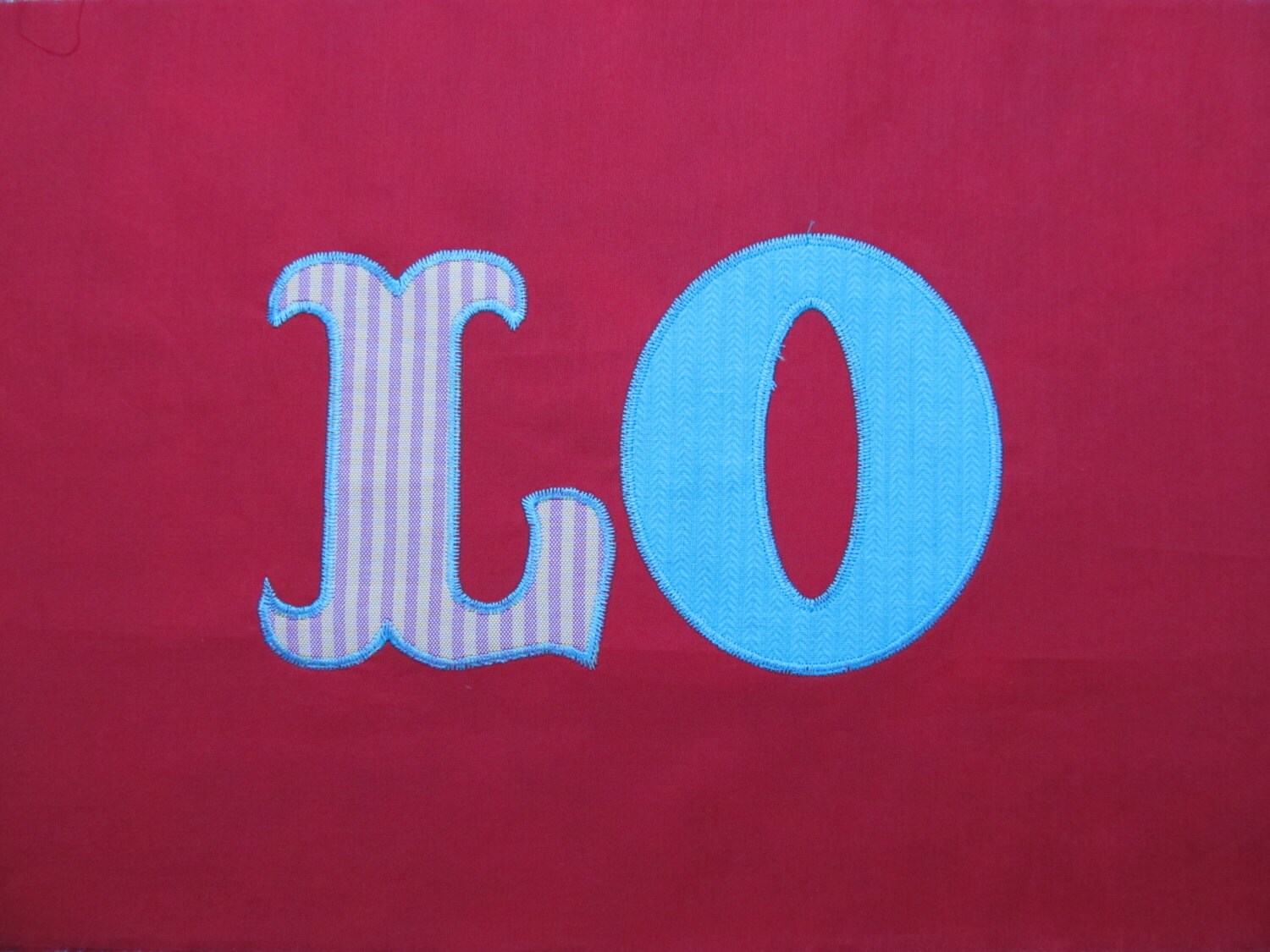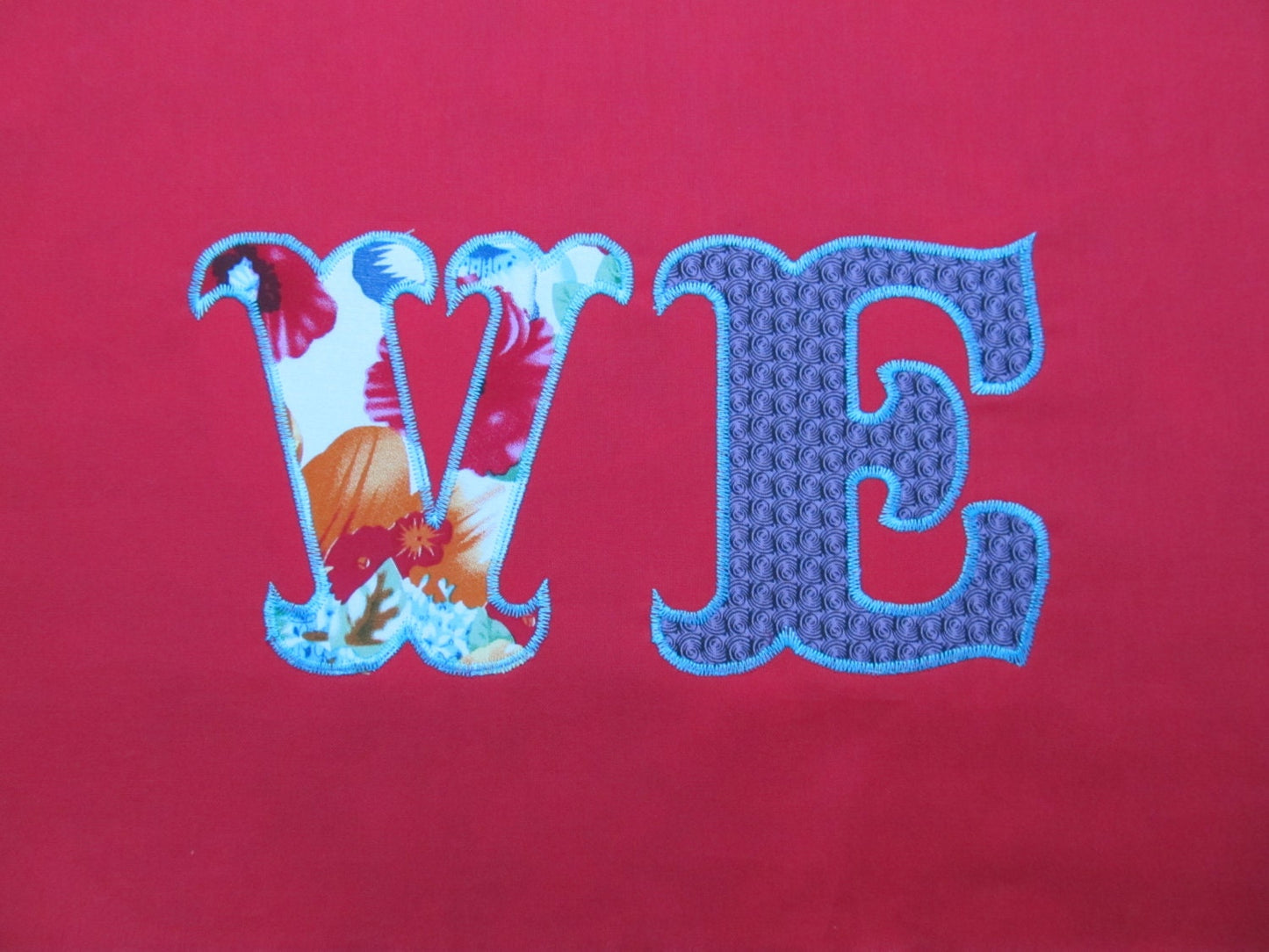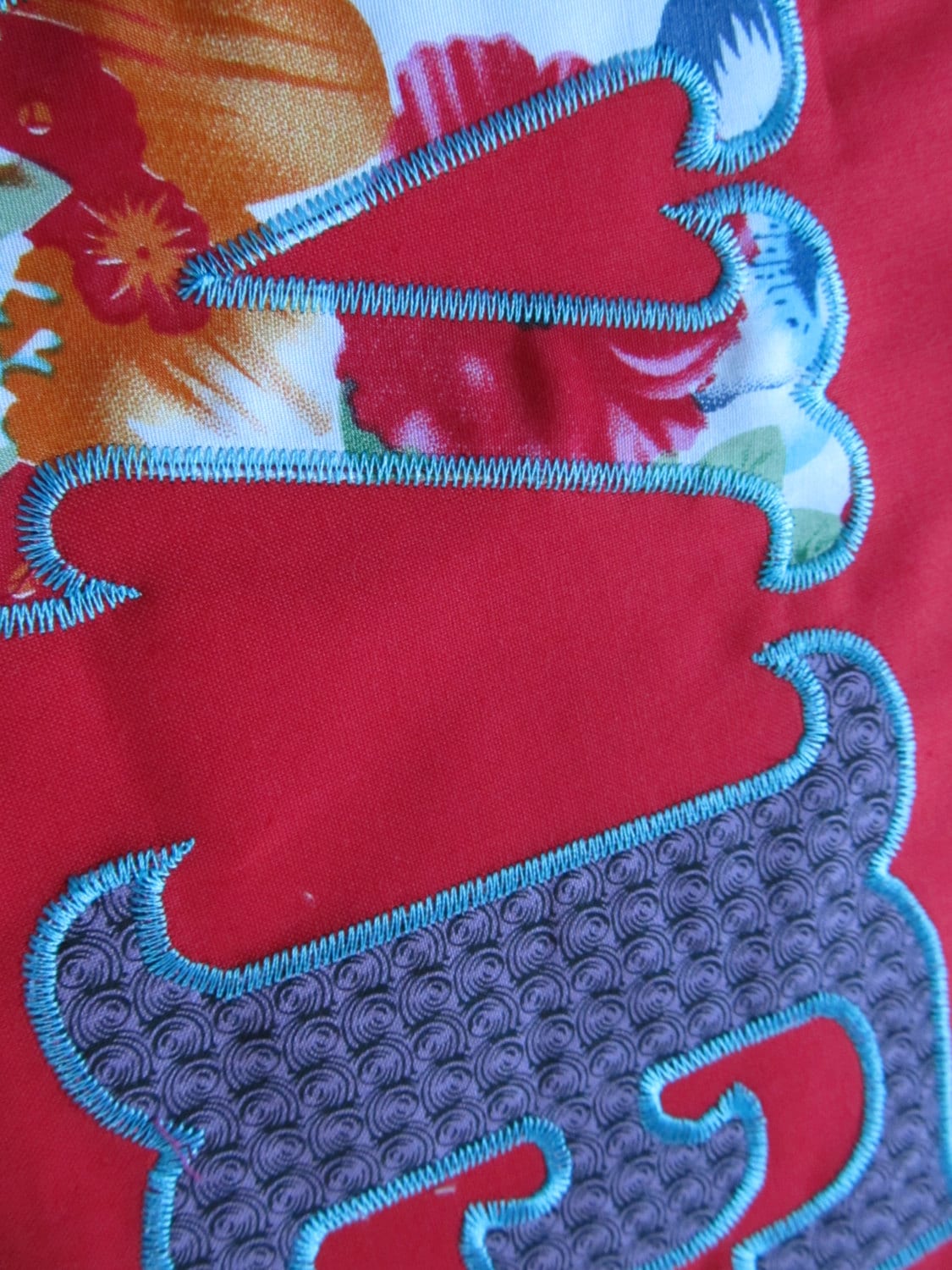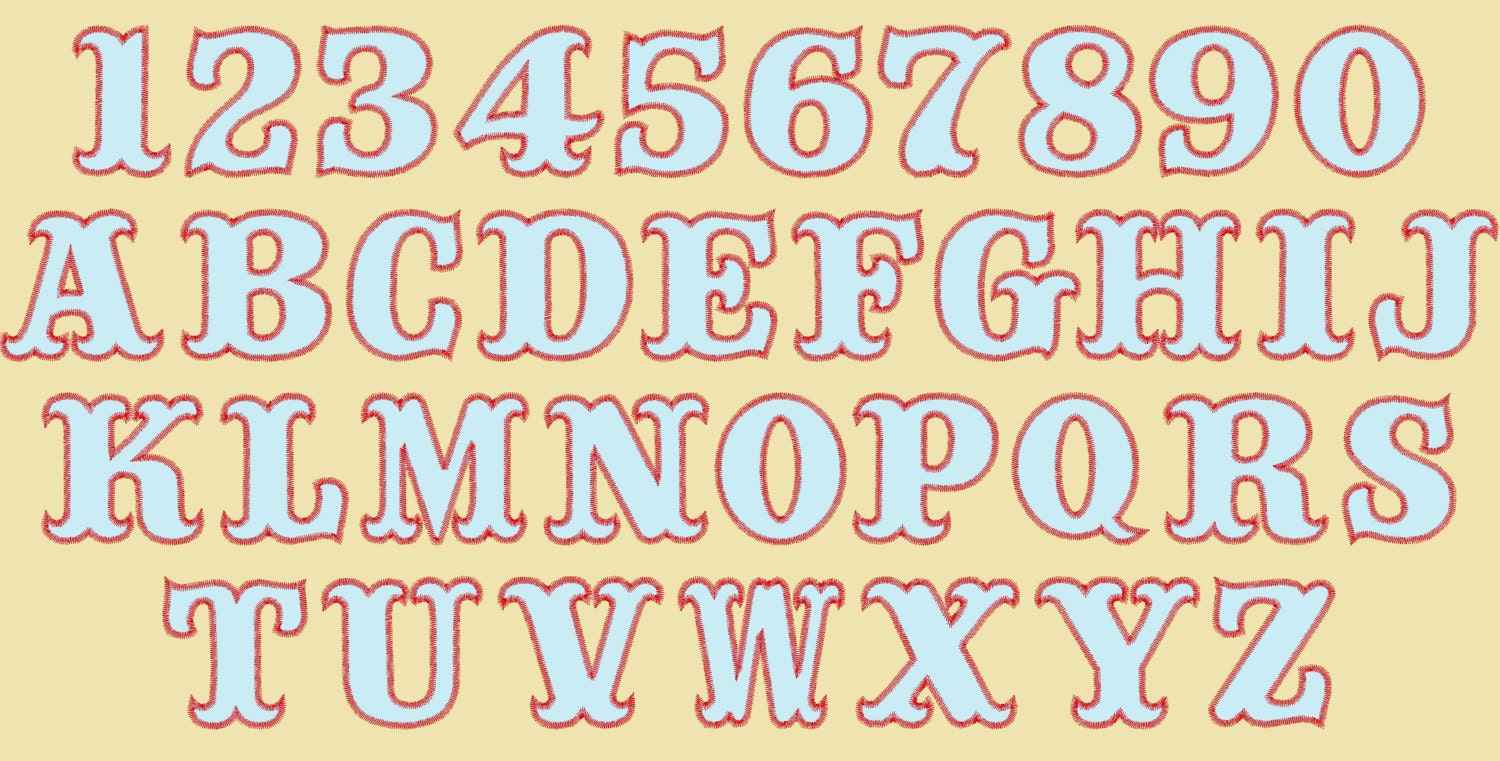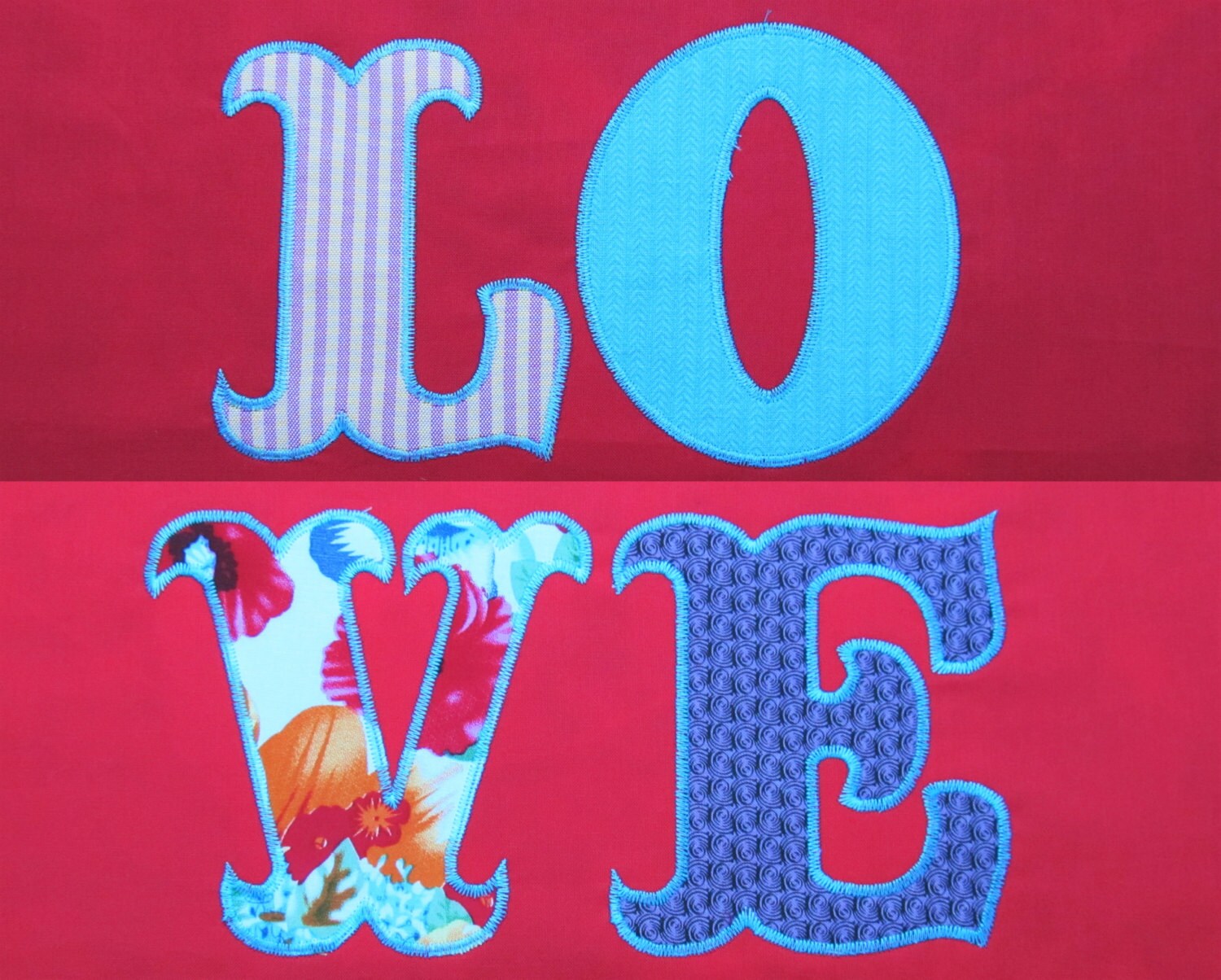
Or click to open the linkA circus style applique font with a zig zag outline. Fun for kids' birthday shirts, names, pillows and party decor.
Capital letters A to Z and numbers 0 to 9 in five sizes: 2, 3, 4, 5 and 6 inches. Each applique letter is finished with a zig zag stitch edge.